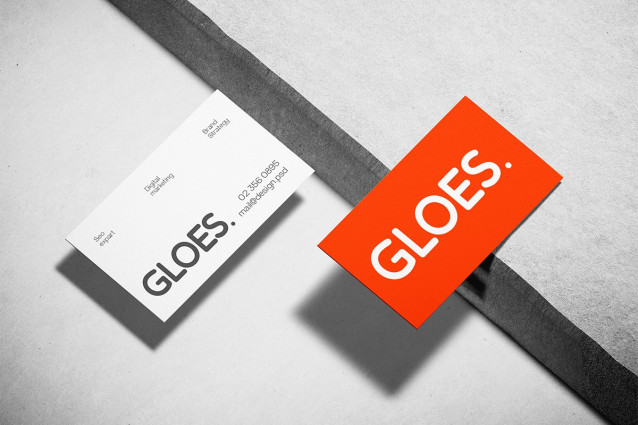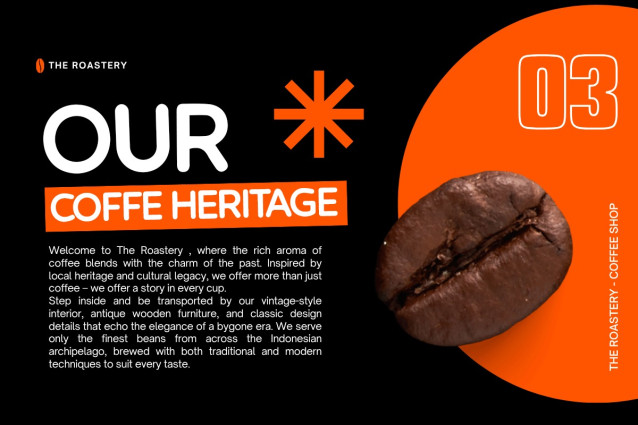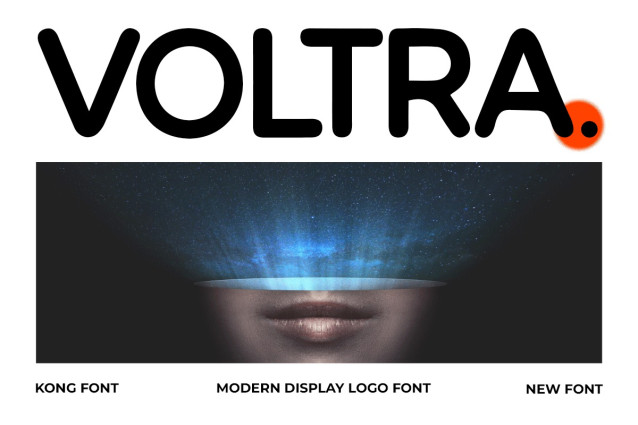
Voltra Font
Voltra Font A Modern Display Logo Font Part of our Display font collection, Voltra A Modern Display Logo Font is a classic render of the archetypal old western typeface. With big square blocks at the serif part of the font. The characteristic of this font could also be put inside a slab serif category. Bold and classic, this font invokes a sense of familiarity and nostalgia in its viewers. Not only that, Voltra A Modern Display Logo Font is a legible display font, meaning that each letter is easily distinguished and this fact makes Voltra A Modern Display Logo Font, one of the best choices to be put on signage, posters, information board, etc. Combined with vintage colors and an old western theme, this font can help you make your cafes or distros regulars feel as if they were going dining in the 1960s. For a smaller size printing job, this font can also be used for the cover of a cowboy storybook or used in the intro of a western film. Voltra A Modern Display Logo Font can also be used on small merchandise products from theme-park such as; keychains, refrigerator magnets, and stickers, or you can also print them on items such as t-shirts, jackets, caps, etc. Our collection of Espot & Futuristic fonts is compatible to use as Figma fonts, Canva fonts, Freepik Fonts, and Adobe Fonts]. They also work as Windows Fonts, and Apple Fonts. For your social media needs, you can use and install fonts in our collection of Espot & Futuristic fonts to use as Instagram Fonts, Facebook Fonts, and Twitter Fonts.